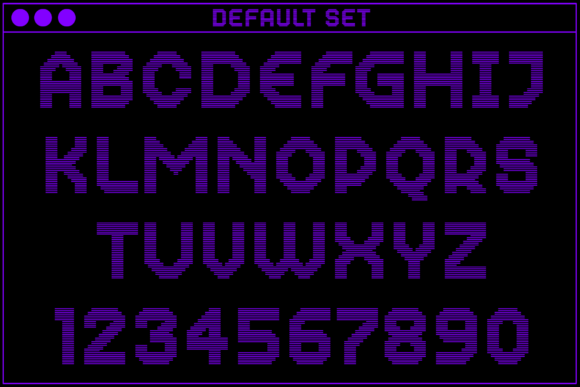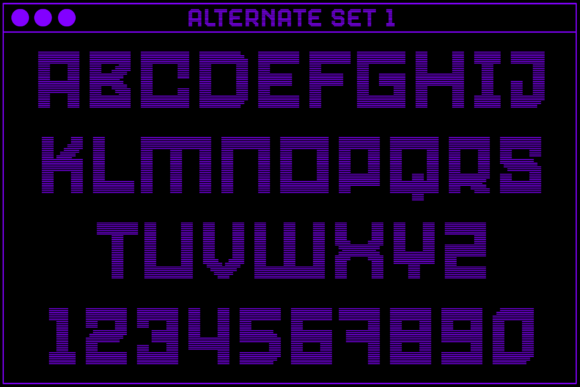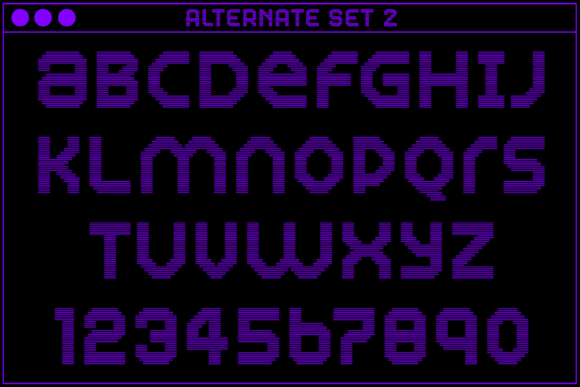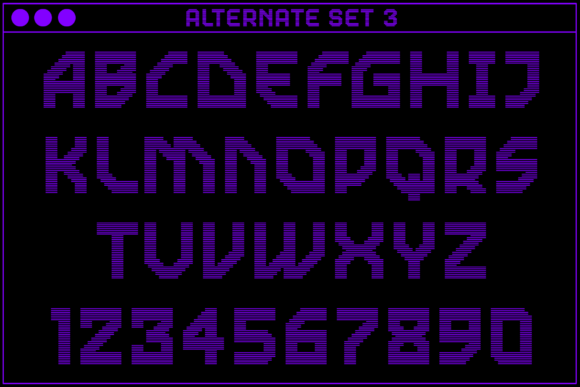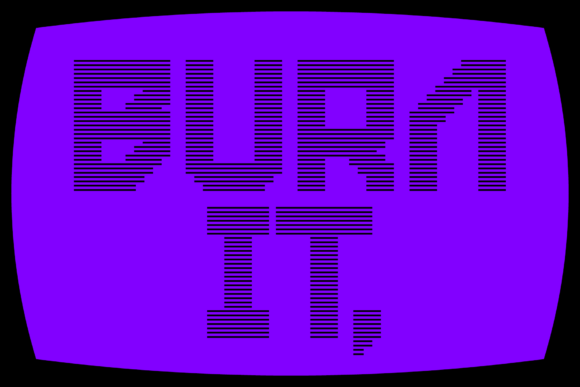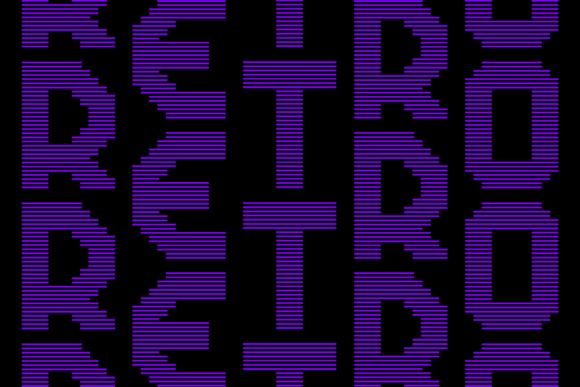
Unlocking the Power of MultiType Rows Regular 2 Font
Have you ever been stuck on a creative project, searching for that perfect font to give it a unique edge? You’re not alone. We’ve all been there, scouring the depths of the internet for that one elusive font that will take our design to the next level. But what if I told you that you’re just a click away from discovering a game-changing font that will revolutionize your creative process? Enter MultiType Rows Regular 2 Font, a bold, pixelated display font that’s about to become your new best friend.
This free download is a design resource like no other, offering a high-quality, transparent background that will seamlessly integrate into any project. With its cool, uniquely shaped glyphs, MultiType Rows Regular 2 Font adds a distorted and trendy touch that’s sure to make your designs stand out from the crowd.
- MultiType Rows Regular 2 Font features a transparent background, allowing for seamless integration into various design elements
- Includes 1 font style with 256 glyphs, making it suitable for a wide range of creative applications
- Designed to be versatile and adaptable, perfect for use in logos, typography, and other design elements
Honest Review: MultiType Rows Regular 2 Font
I recently stumbled upon the MultiType Rows Regular 2 Font, and I must say it’s been a game-changer for my design projects. This high-quality font is perfect for any creative project that requires a clean and modern look. The free download option is a huge bonus, making it an excellent resource for designers on a budget.
What works well is the font’s versatility – it’s perfect for use in a variety of contexts, from logos to headings. The transparent background allows for seamless integration with any design element, giving me the freedom to focus on the creative aspect of my project. ✨
- High-quality font with a clean and modern look
- Perfect for creative projects, logos, and headings
While the MultiType Rows Regular 2 Font is an excellent choice, there are a few limitations to consider. The font family is relatively small, which may limit its use in more extensive design projects. Additionally, the font may not be suitable for projects that require a more distressed or vintage look. ⚠️
Overall, I’m thoroughly impressed with the MultiType Rows Regular 2 Font. Its high quality, versatility, and free download option make it an essential design resource for any creative project. I highly recommend giving it a try!
Tips for Getting the Most Out of MultiType Rows Regular 2 Font
Use the font in combination with other design elements to create a visually appealing design.
Experiment with different font sizes and styles to add emphasis to your text.
Common Use Cases for MultiType Rows Regular 2 Font
Headings and titles in brochures, flyers, and posters.
Body text in business cards, resumes, and newsletters.
Labels and captions in infographics and presentations.
Compared to MultiType Rows Regular 2 Font, Inter is more minimalist and lacks the ornate details. It’s a better choice when you need a simple, easy-to-read font for your design project.
Is the MultiType Rows Regular 2 Font suitable for designs with transparent backgrounds?
Yes, the MultiType Rows Regular 2 Font has a transparent background, making it perfect for designs that require a clean and modern look. The font’s transparent background allows it to blend seamlessly with other design elements, giving your creative project a professional and polished appearance.